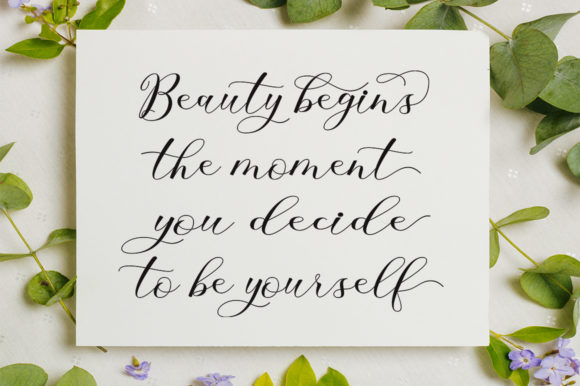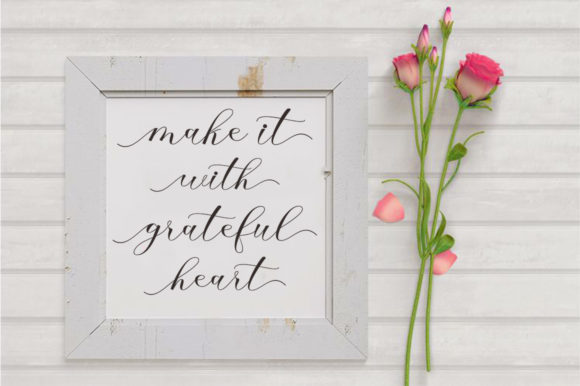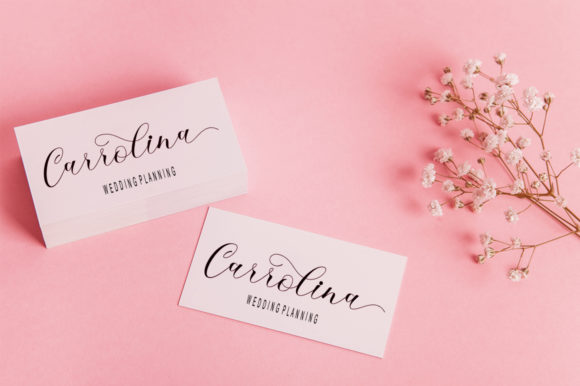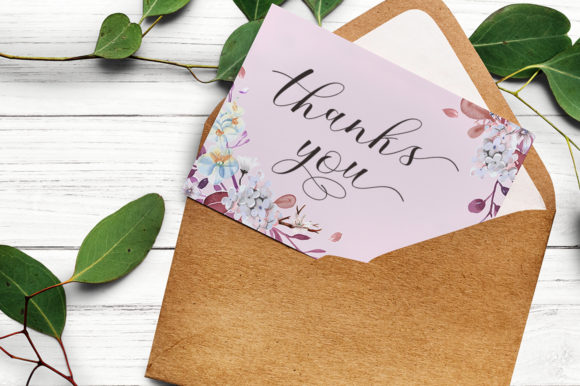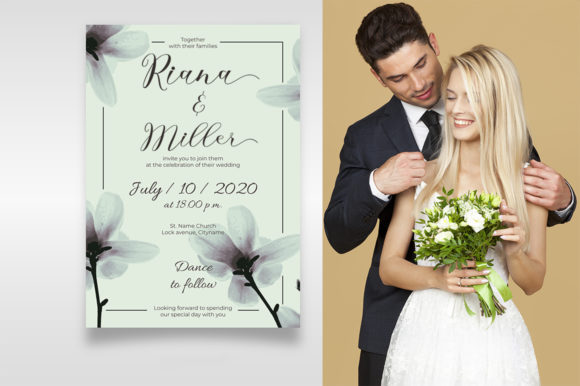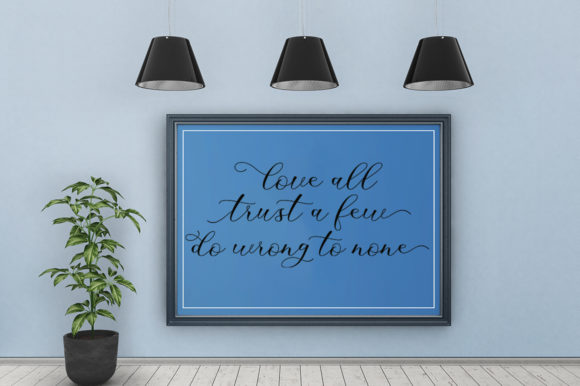
Introduction to Sandira Script Font
Sandira is a modern and elegant script font, perfect for adding a playful vibe to any design idea.
Sandira is a modern and elegant script font, perfect for adding a playful vibe to any design idea!
Key Features of Sandira Script Font
Why Choose Sandira Script Font?
Sandira Script Font offers exceptional quality and versatility, making it a valuable addition to your design toolkit. Whether you’re creating for personal projects or commercial use, Sandira Script Font delivers professional results.